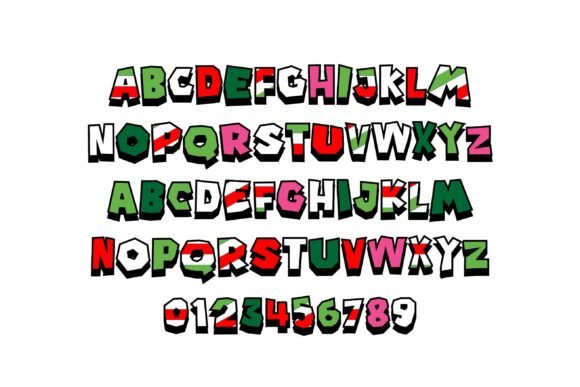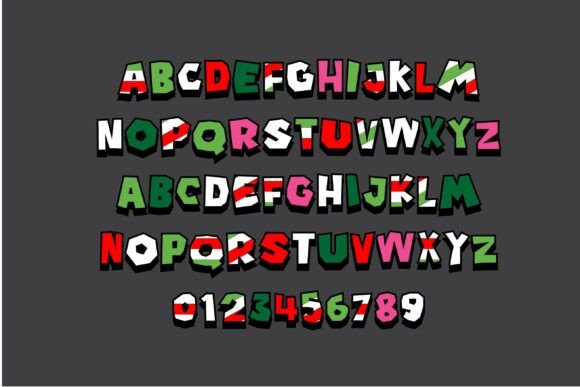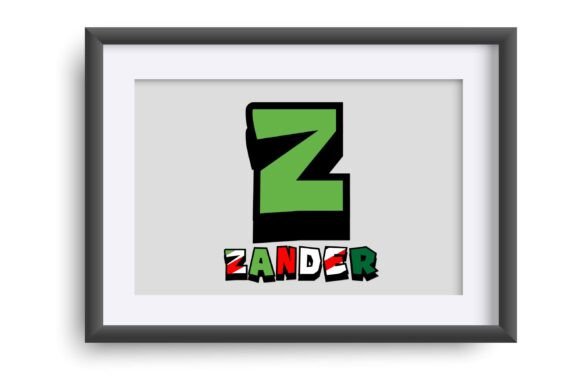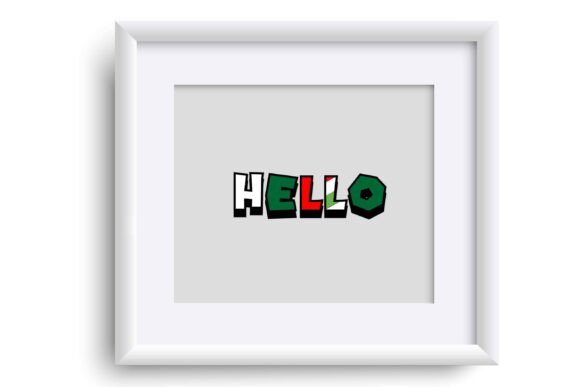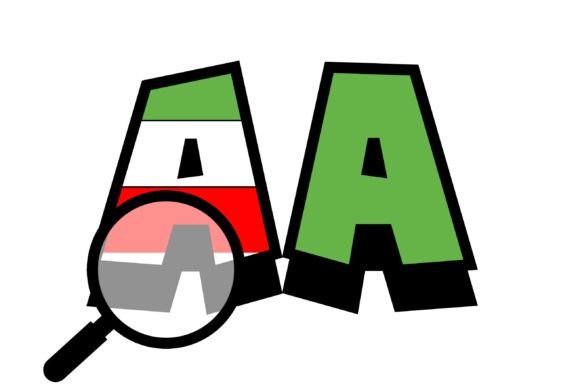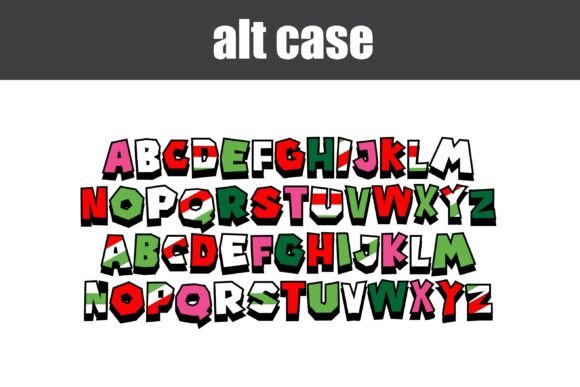
Introduction to Marvel Mexico Font
As designers, we’ve all been there – staring at a blank canvas, trying to capture the essence of a creative project. The spark of inspiration often comes from unexpected places, like the vibrant colors and bold spirit of a nation. For those who’ve ever wanted to infuse their designs with the energetic vibe of Mexico, the Marvel Mexico Font is here to ignite that spark.
This dynamic display typeface combines the classic comic book aesthetic with the bold, patriotic spirit of Mexico, resulting in a unique visual identity that’s hard to ignore. With its heavy, blocky letterforms and rhythmic tricolor-stripe patterns, the Marvel Mexico Font is the perfect design resource for any creative project that demands high impact and attention-grabbing visuals.
Whether you’re working on a high-octane event poster, a social media header, or a souvenir logo, the Marvel Mexico Font is a valuable addition to your design arsenal. Its high-quality, full-color SVG design allows for seamless scaling and manipulation, while its transparent background makes it easy to integrate into any design project. And the best part? It’s available for free download, making it an accessible design resource for designers of all levels.
- Unique, bold, and modern design aesthetic, ideal for adding a touch of Marvel flair to any creative project.
Honest Review: Marvel Mexico Font
I recently had the chance to experiment with the Marvel Mexico Font, and I must say it’s a unique addition to any design project. The font’s vibrant colors and bold characters immediately caught my attention.
Overall, the Marvel Mexico Font is a great addition to any design resource collection. Its unique style and versatility make it suitable for a variety of creative projects. While it may have some limitations, the benefits far outweigh the drawbacks. If you’re looking for a high-quality, free download font, the Marvel Mexico Font is definitely worth considering.
The Marvel Mexico Font is suitable for a variety of design projects, including:
- Branding and logo design.
- Poster and flyer creation.
- Social media graphics and advertising.